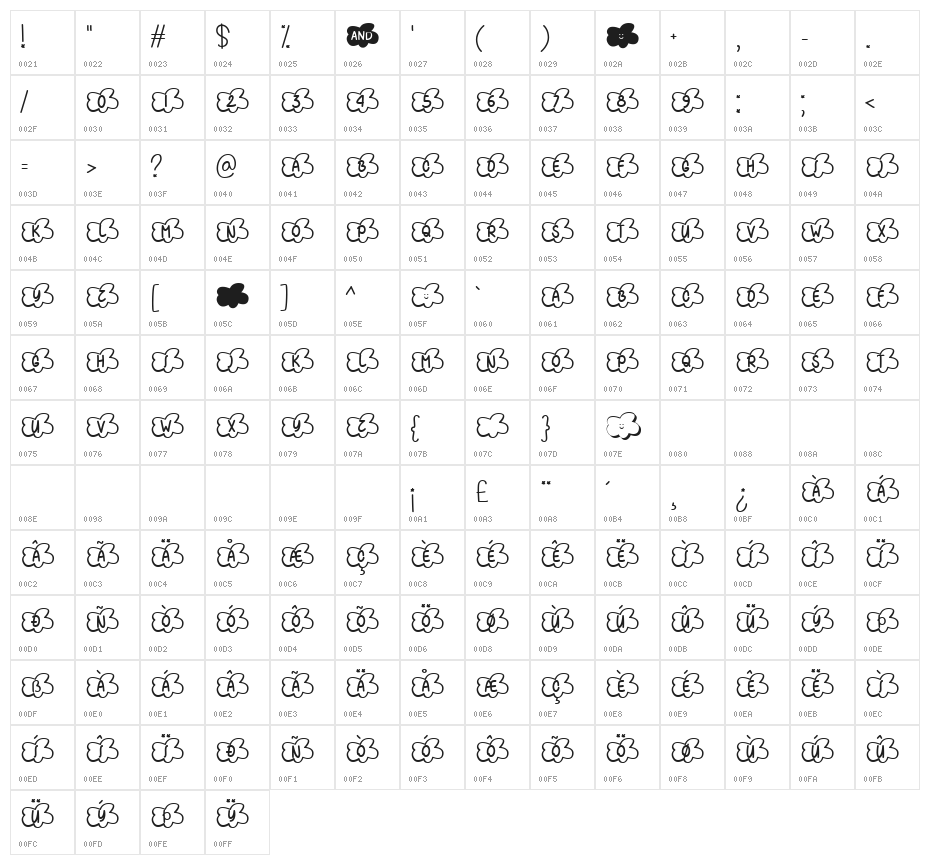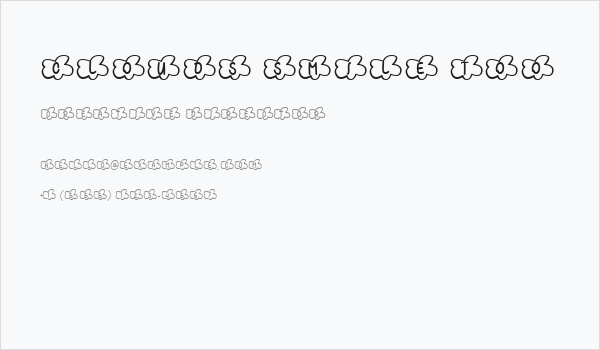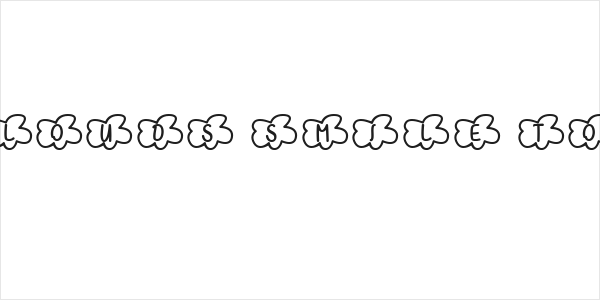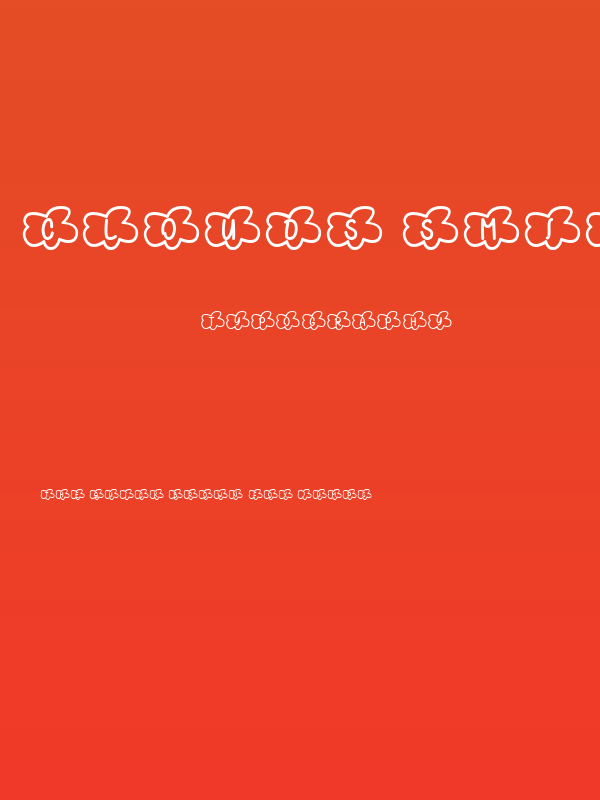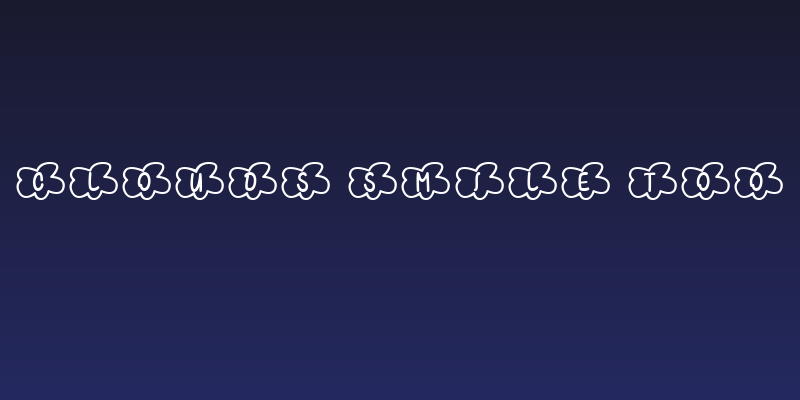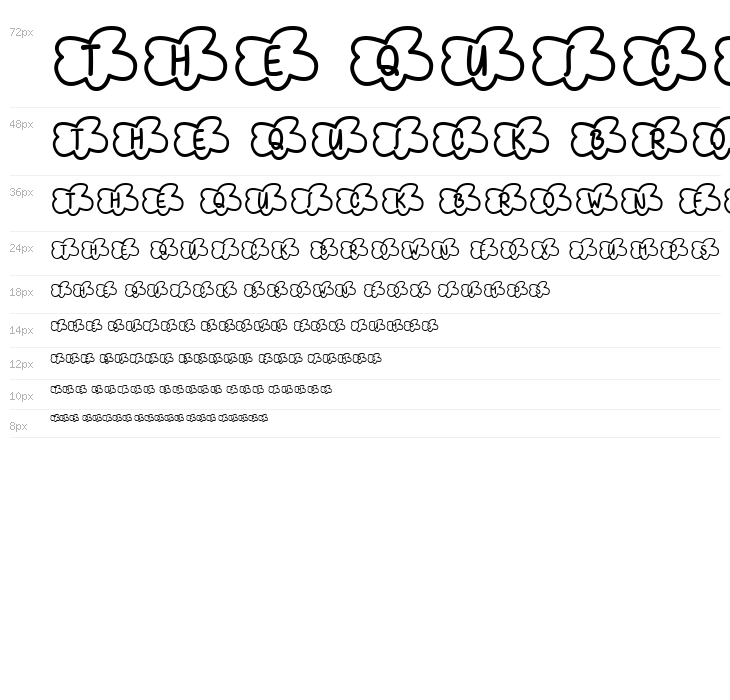
Clouds Smile Too Font
Clouds Smile Too Description
This playful and whimsical font features characters enclosed within cloud-like shapes, giving it a lighthearted and cheerful appearance. Each letter and number is centered within a fluffy cloud outline, creating a sense of fun and creativity. The bold outlines of the clouds contrast with the thinner strokes of the characters, making them stand out while maintaining a cohesive look. The font includes a full set of uppercase and lowercase letters, numbers, and a variety of special characters, all designed with the same cloud motif. Its unique style is perfect for projects that aim to convey joy, playfulness, and imagination.